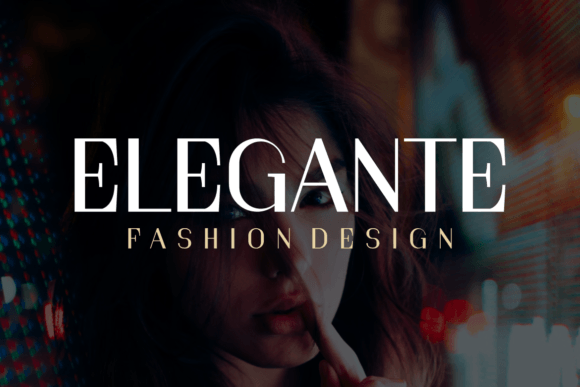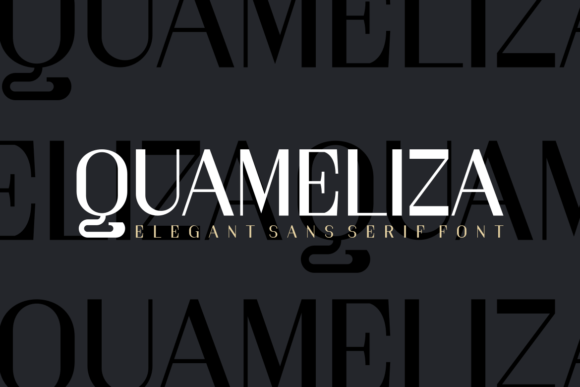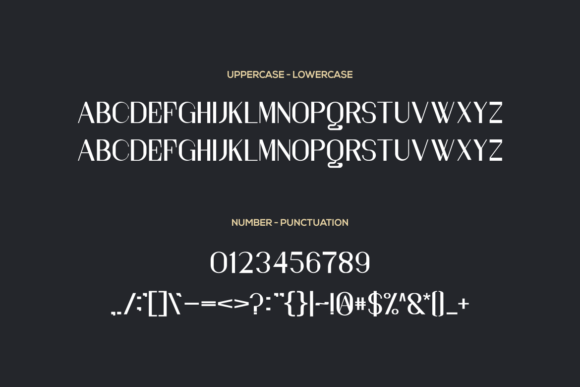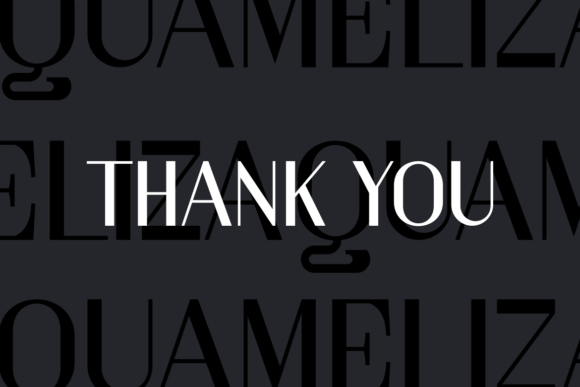
Introduction to Quameliza Font
Have you ever found yourself staring at a blank canvas, struggling to bring your creative project to life? We’ve all been there – the blank page, the blinking cursor, and the nagging voice of self-doubt. But what if you had the perfect design resource to elevate your work and make it shine? Enter the Quameliza Font, a stylish and sleek sans serif font that’s sure to take your designs to the next level.
With its clean lines and modern look, the Quameliza Font is the perfect choice for professional and elegant designs. Whether you’re working on a high-quality logo, brochure, or website, this font is sure to bring a touch of sophistication and class to your project. And the best part? It’s available for a free download, complete with a transparent background, making it easy to incorporate into any design.
Key Features of Quameliza Font
- High-quality design: The Quameliza Font is a premium design resource ideal for creative projects that demand a professional touch.
- Unique characteristics: The Quameliza Font boasts a unique and modern design aesthetic, perfect for designers looking to add a touch of creativity to their projects.
Honest Review: Quameliza Font
I recently stumbled upon the Quameliza Font while searching for high-quality design resources. As a designer, I’m always on the lookout for unique and versatile fonts that can elevate my creative projects.
Here’s what I like about the Quameliza Font:
- ✨ It’s incredibly easy to use, even for non-professionals.
- ⚠️ The font may not be ideal for formal or professional applications due to its playful nature.
- ⚠️ Some users may find the font’s character set limited for more complex design projects.
Overall, I’m impressed with the Quameliza Font’s potential for adding a creative touch to design projects. While it may not be suitable for every project, it’s a great addition to any designer’s toolkit.
Quameliza Font is suitable for a wide range of creative projects, including graphic design, branding, and digital art. Use it for creating logos, icons, and other visual elements that require a high-quality and unique font.